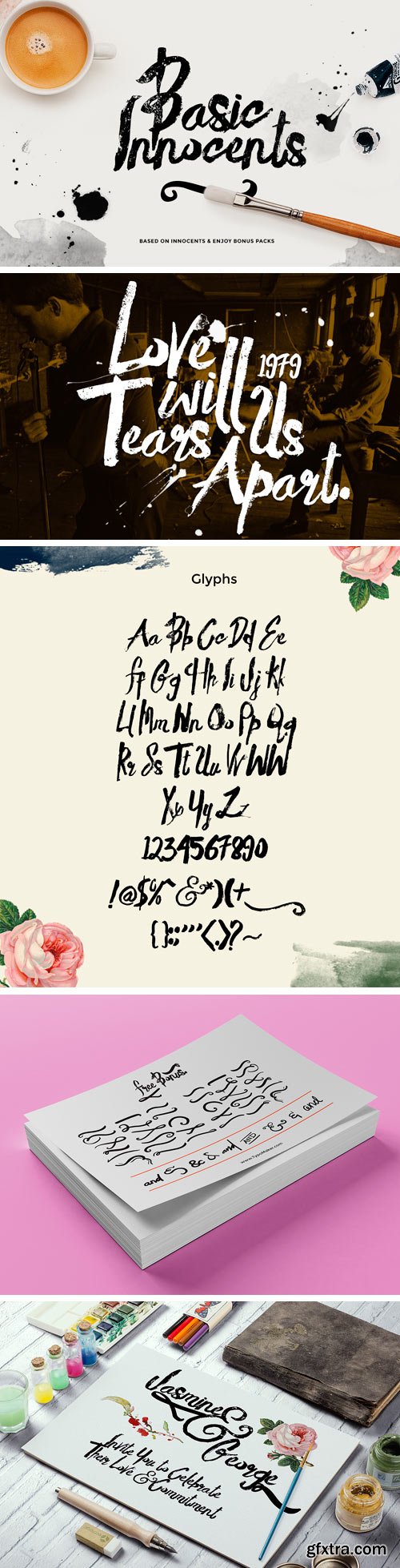
CM - Basik Rough Typeface+bonus 153552
- Actually this is basic rough from innocents typeface, with different glyphs from innocent can make the stuff powerfull, original, unique, made from waterbrush and i have to tried to catch the texture, combine with bonus pack you should be create many stuff like gig, poster, invitation, or anything you want. Show you display with this can be an original art.